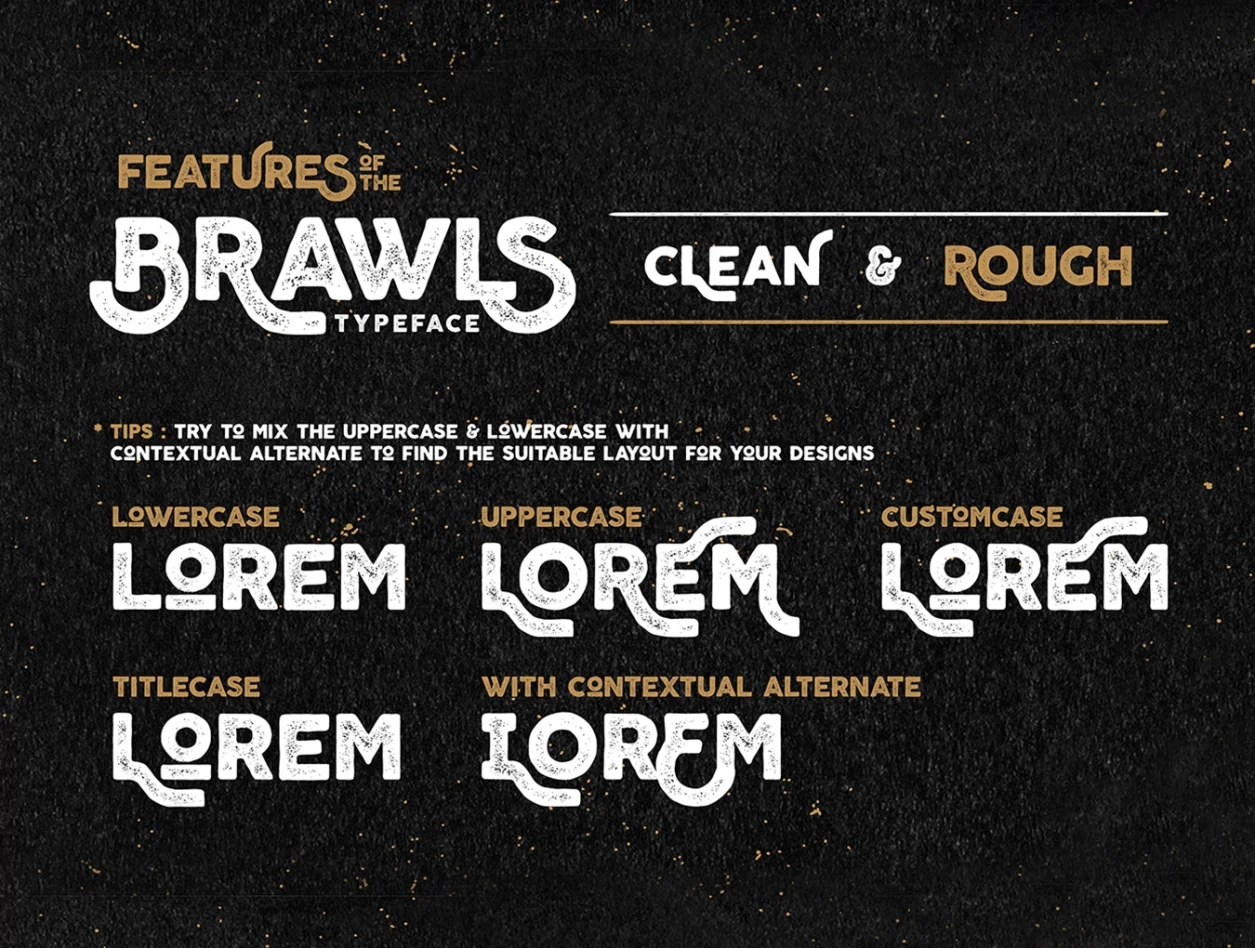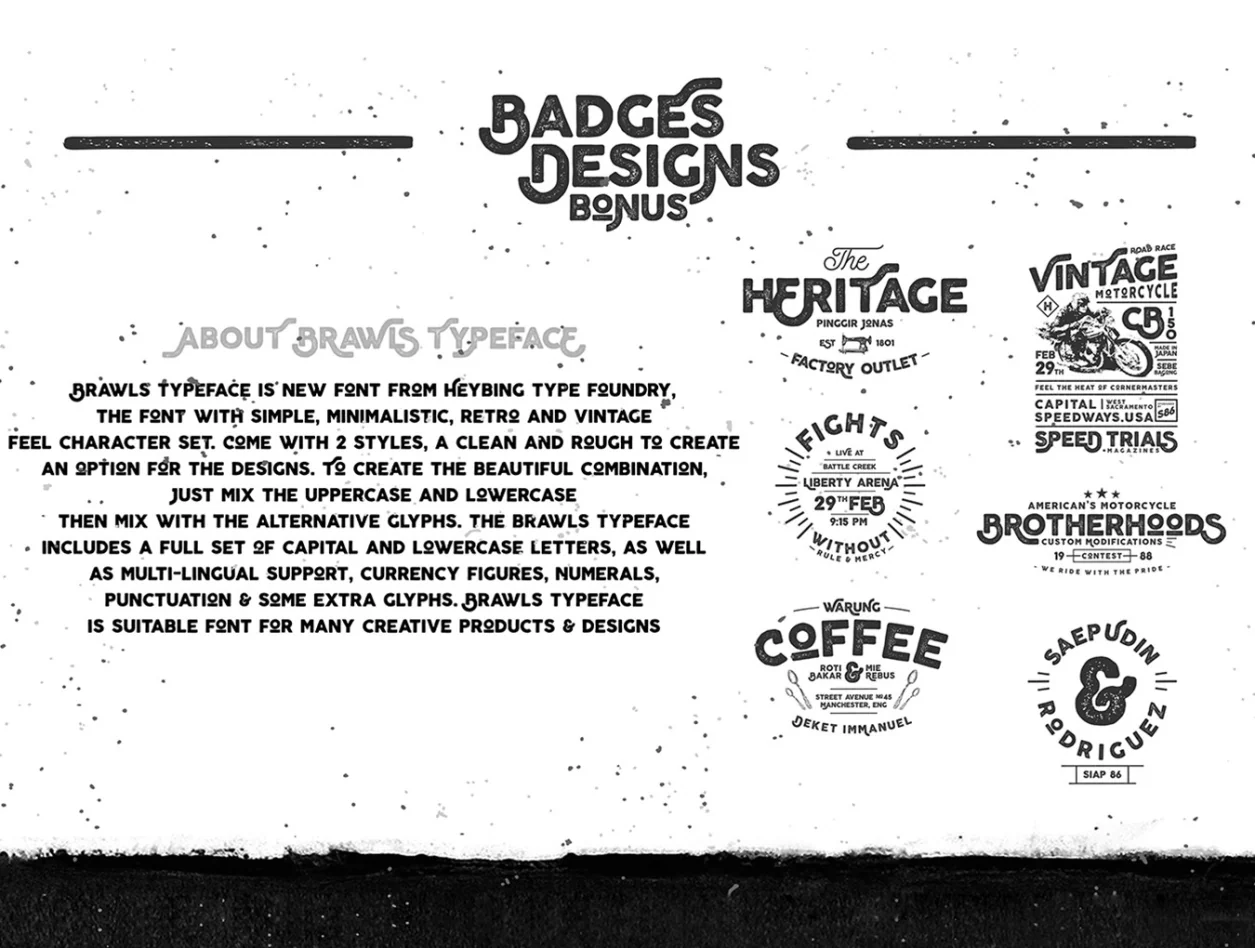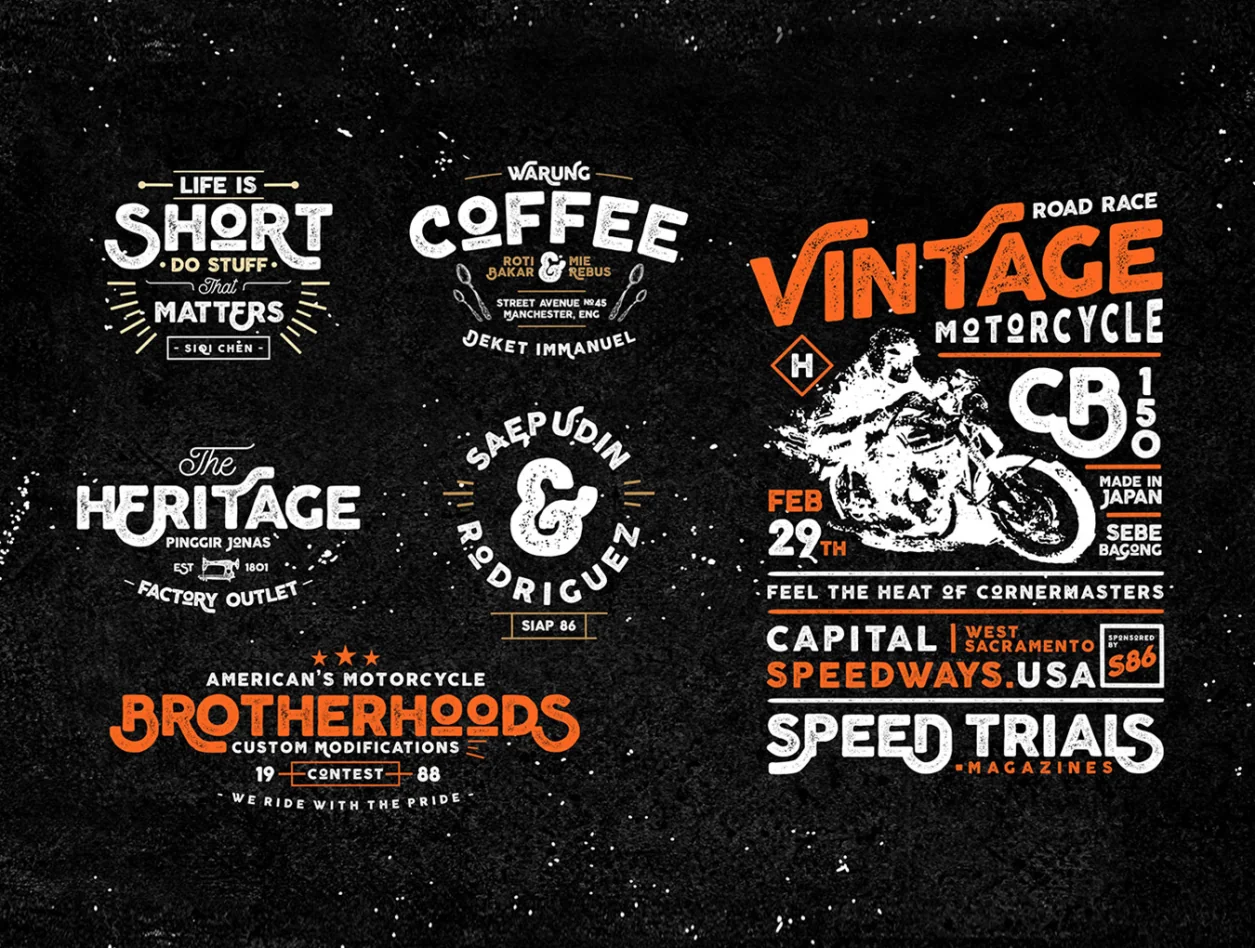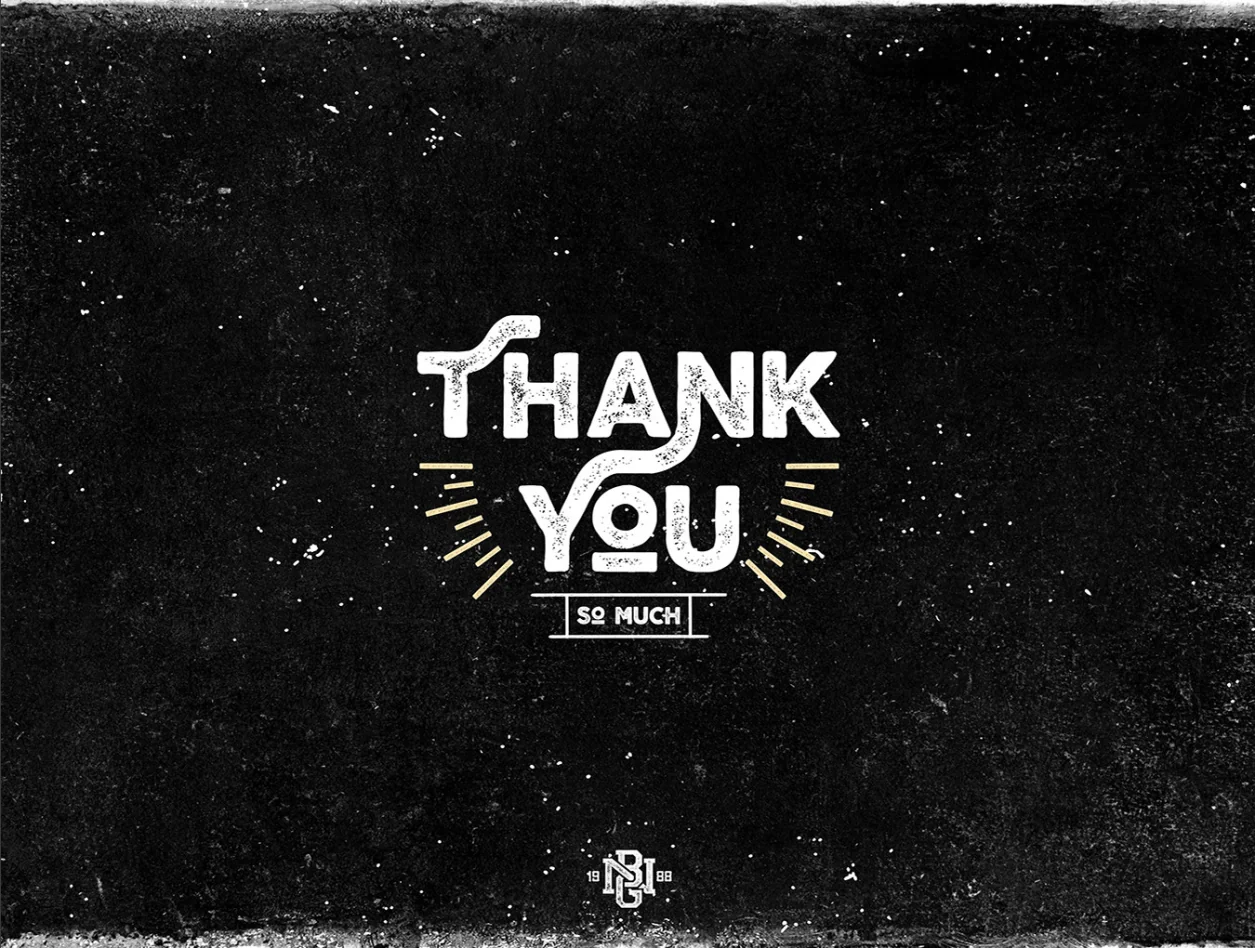
Brawls Typeface
A neat, rugged stylized font
Brawls Typeface by Heybing Supply Co. is a simple, minimalist font with retro and vintage character. It offers clean and rough styles for flexible design options. Mix upper and lowercase letters with alternate glyphs for stylish combinations. Includes multilingual support, currency symbols, numbers, punctuation, and extra glyphs.